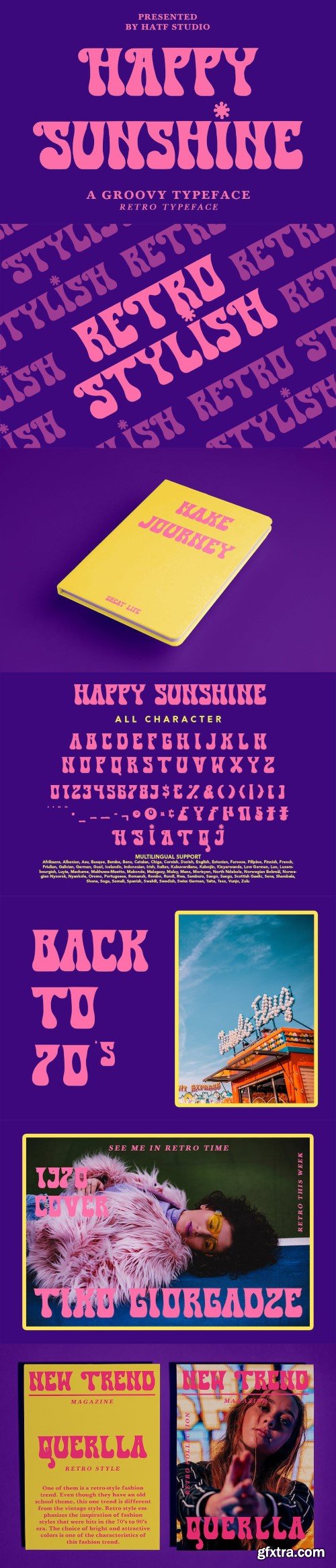
Is a font with groovy retro style. With distinctive handwritten characters perfect for branding projects, logos, wedding designs, media posts, advertisements, product packaging, product designs, labels, photography, watermarks, invitations, stationery, and any project who need handwritten dishes.
Features :
- Uppercase & Lowercase
- Multilingual support
- Number
- Symbol
- Punctuation